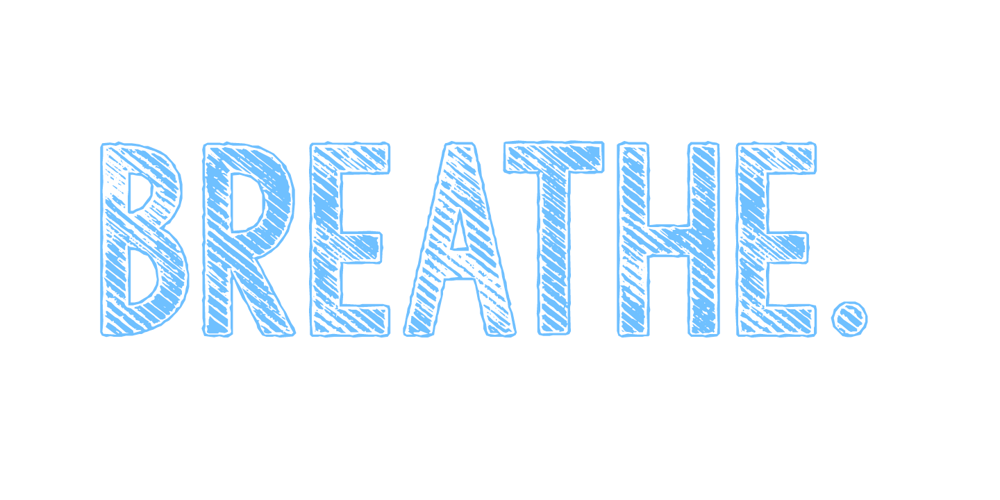
KG Tangled Up In You
KG Tangled Up In You font
KG Tangled Up In You Font Family was designed by Kimberly Geswein and published by Kimberly Geswein. KG Tangled Up In You contains 2 styles and family package options. An uppercase font, perfect for titles and headlines, in both a sketchy and a solid version.